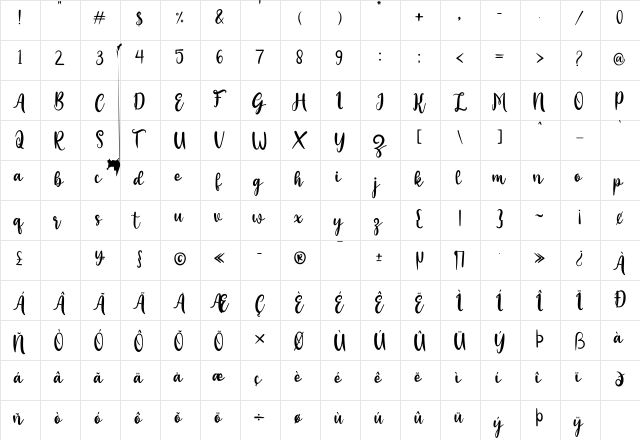
adela Regular Font Preview
adela Regular
adela Regular Font Details
Design Context for adela Typeface
adela is a composed and adaptable typeface that performs quietly and consistently across a wide range of design contexts.